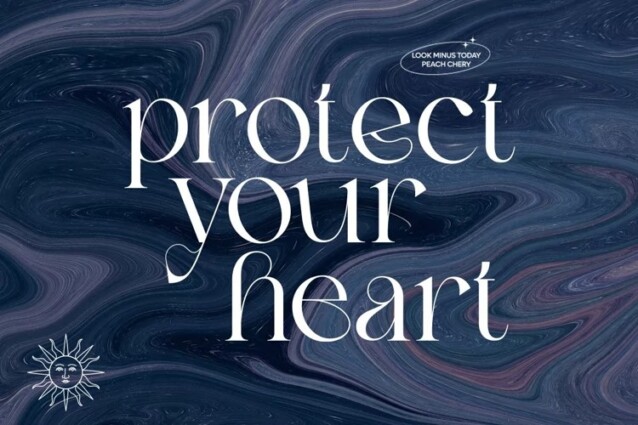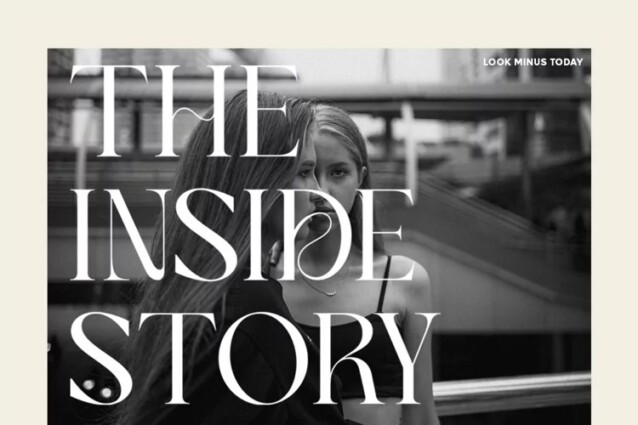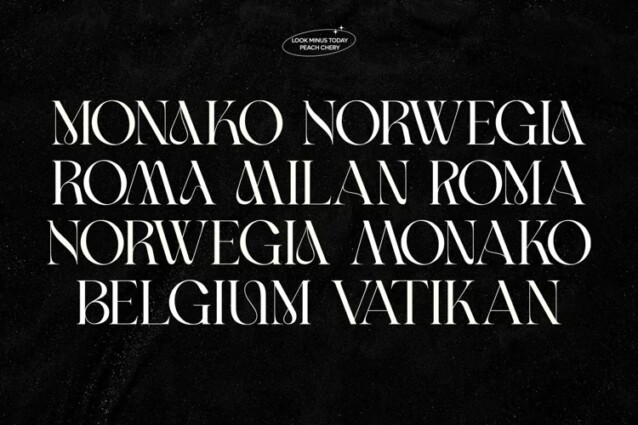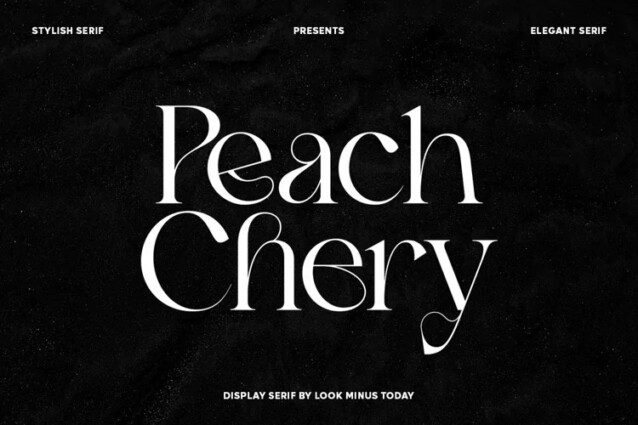
Peach Chery Font
Peach Chery Font is an elegant display serif typeface crafted & designed by Look Minus Today. This font is impressive and features elegant and professionally shaped fonts, and as a result, it will easily match a variety of creations that require a different touch. Its sleek and stylish look makes it suitable for a variety of applications, including branding, advertising, and editorial design.